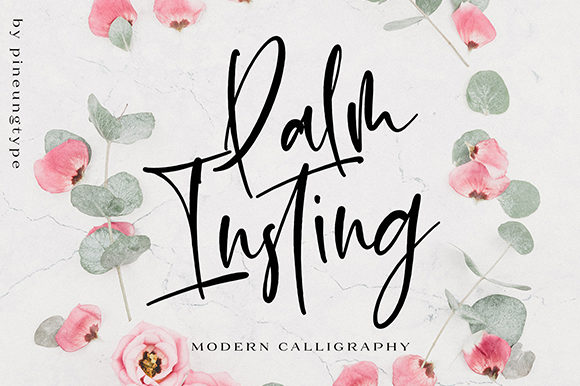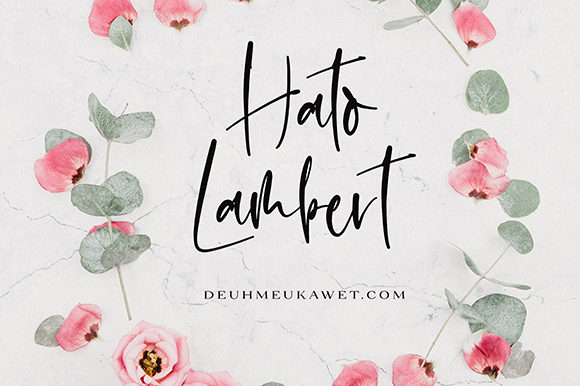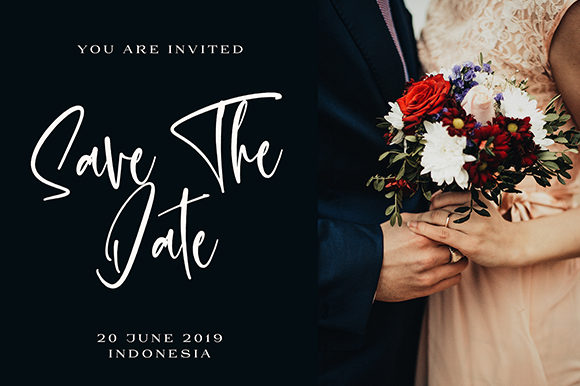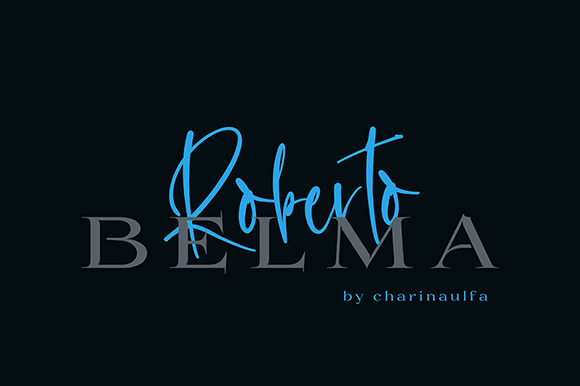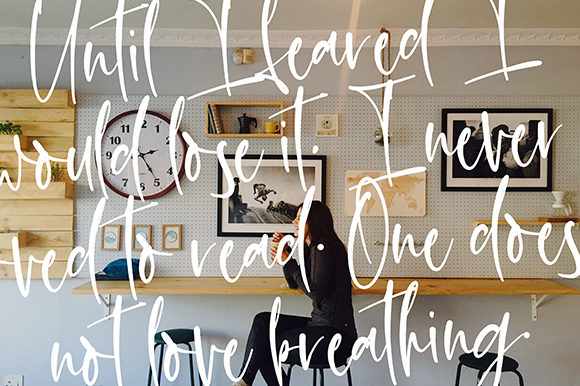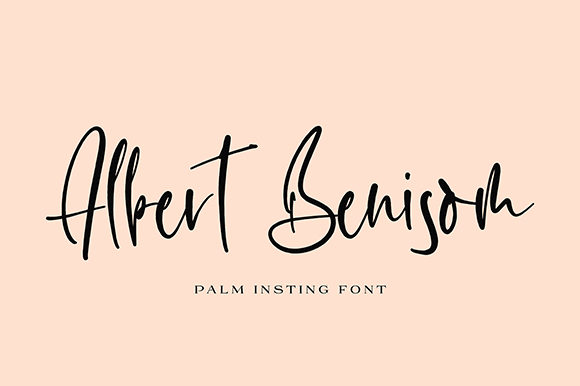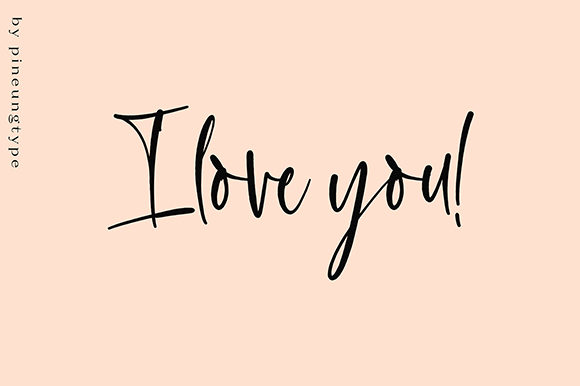
Palm Insting Font
About Palm Insting Font
Palm Insting is a stunning and charming handwritten font with an effortlessly beautiful feel. Sophisticated, yet casual, it will add an authentic touch to any design project.